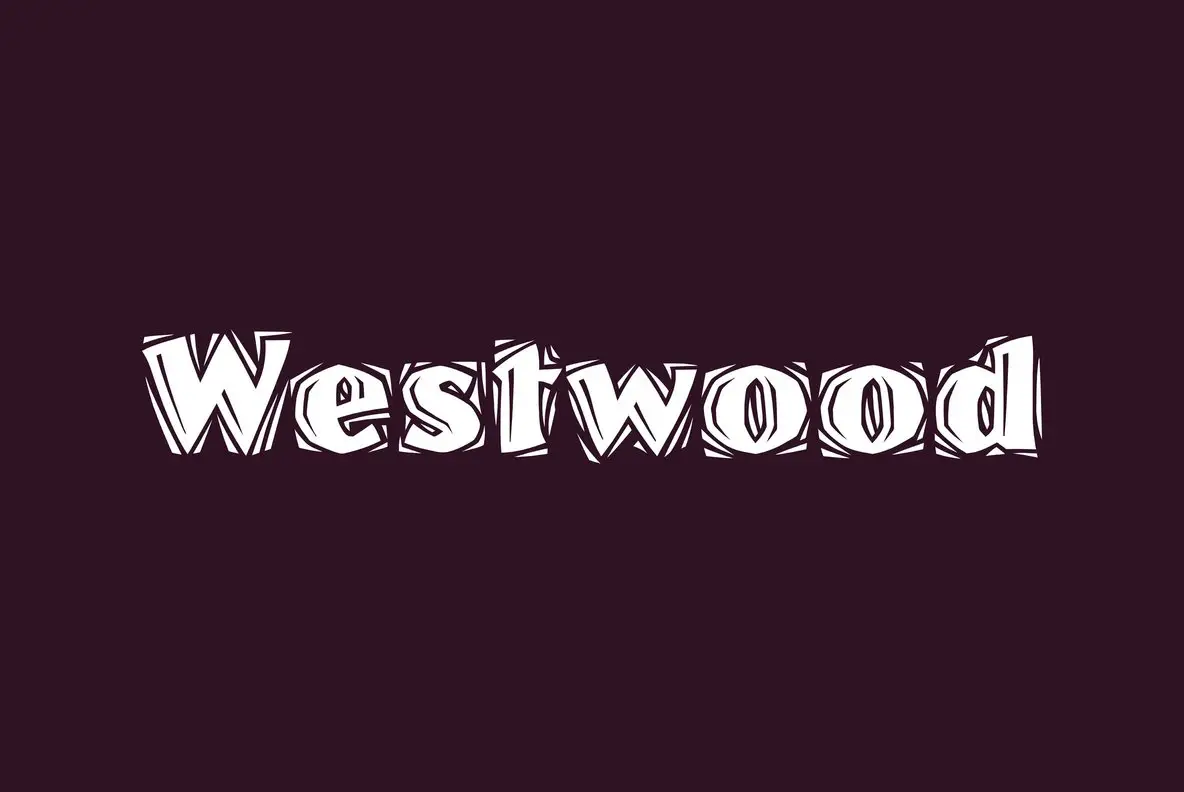
Westwood
Foundry: Letraset
This bold display typeface features a fine 'lino-cut' effect and is based on the current revival of this craft form. A dramatic, eye-catching style with a rough-hewn look. Created by American West Coast designer David Westwood.